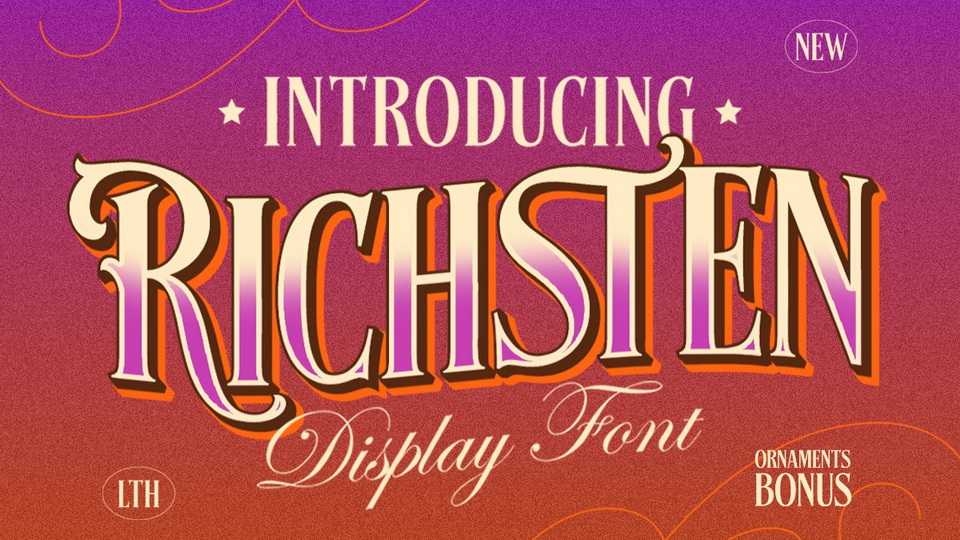
Download Richsten font, a majestic display typeface which is inspired by vintage lettering sign and art. While Richsten font has a Victorian touch, it still looks bold and solid.